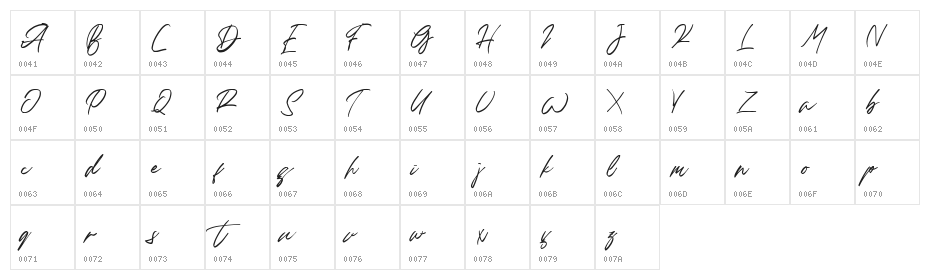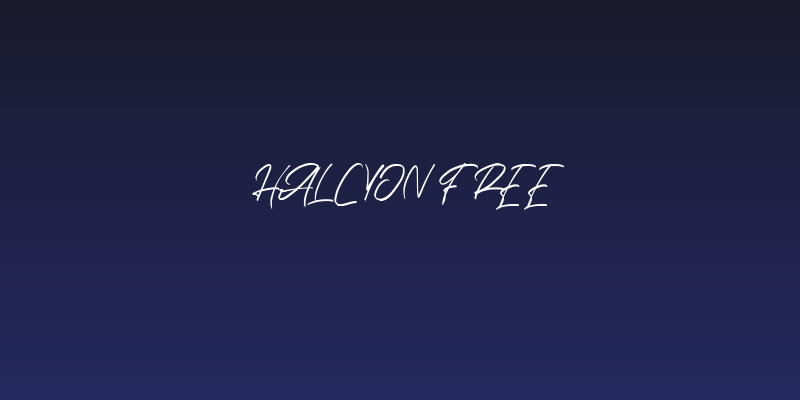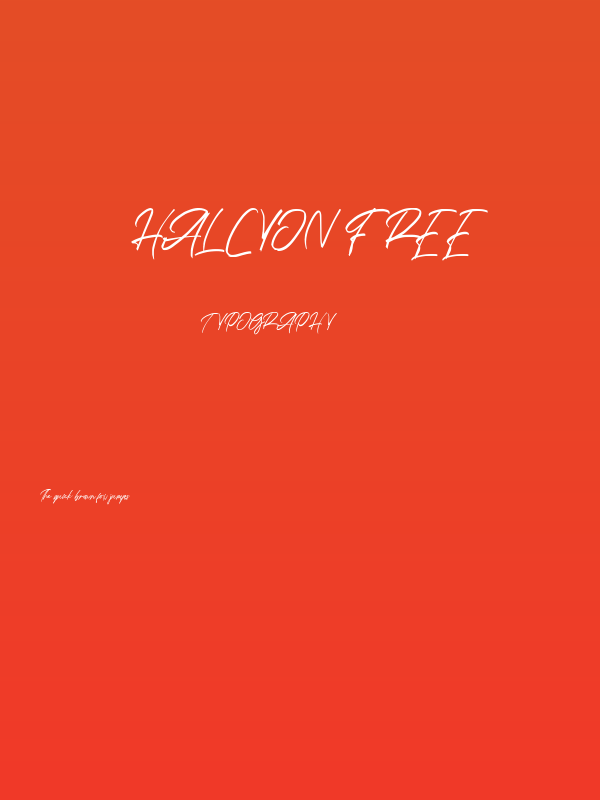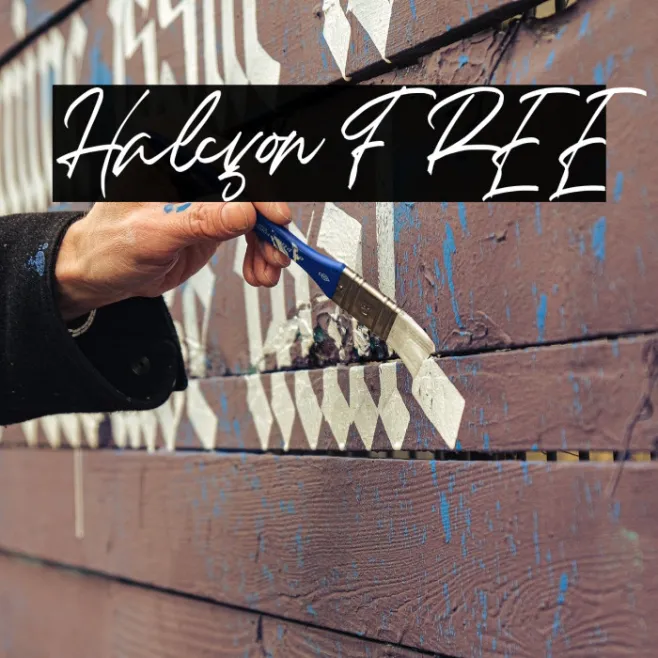
Halcyon FREE Font
Halcyon FREE Description
A flowing, handwritten script font with a casual and artistic style, featuring varying stroke widths and a natural, organic feel.
| Use Case | Logos, Headlines |
| Proposed Projects | Invitations, greeting cards, personal branding. |